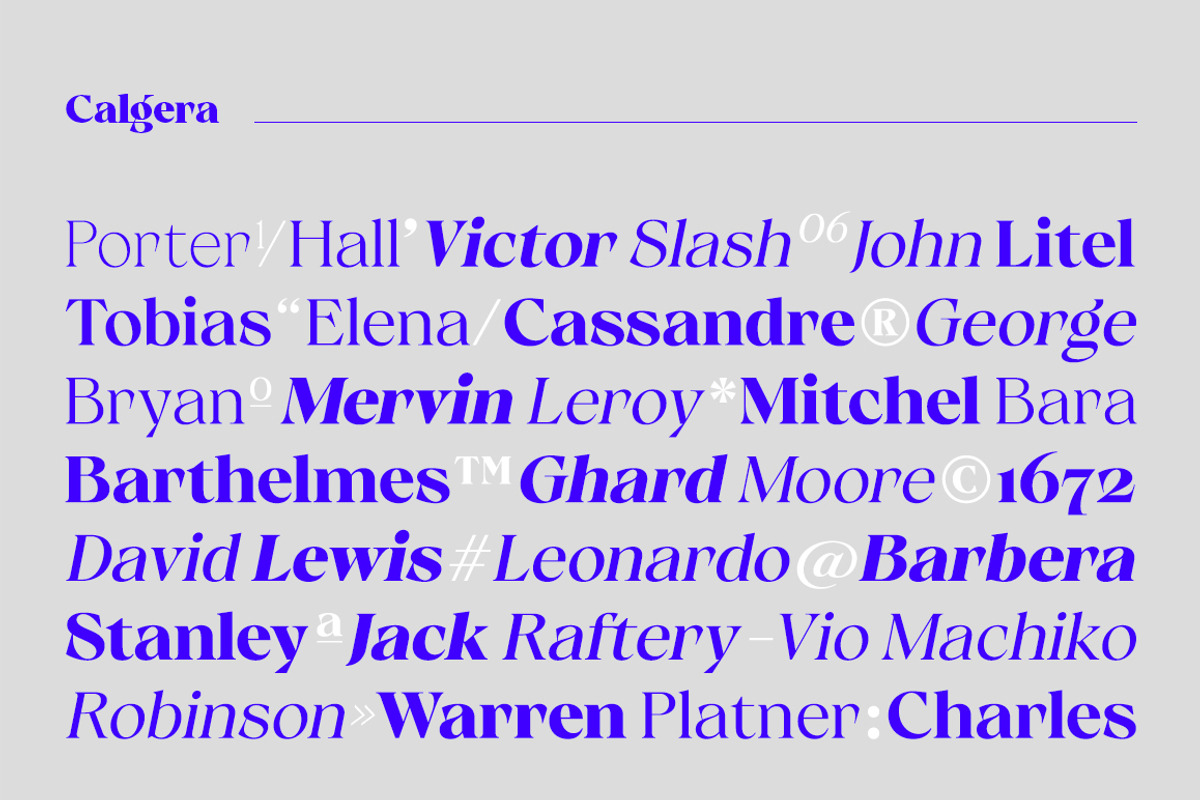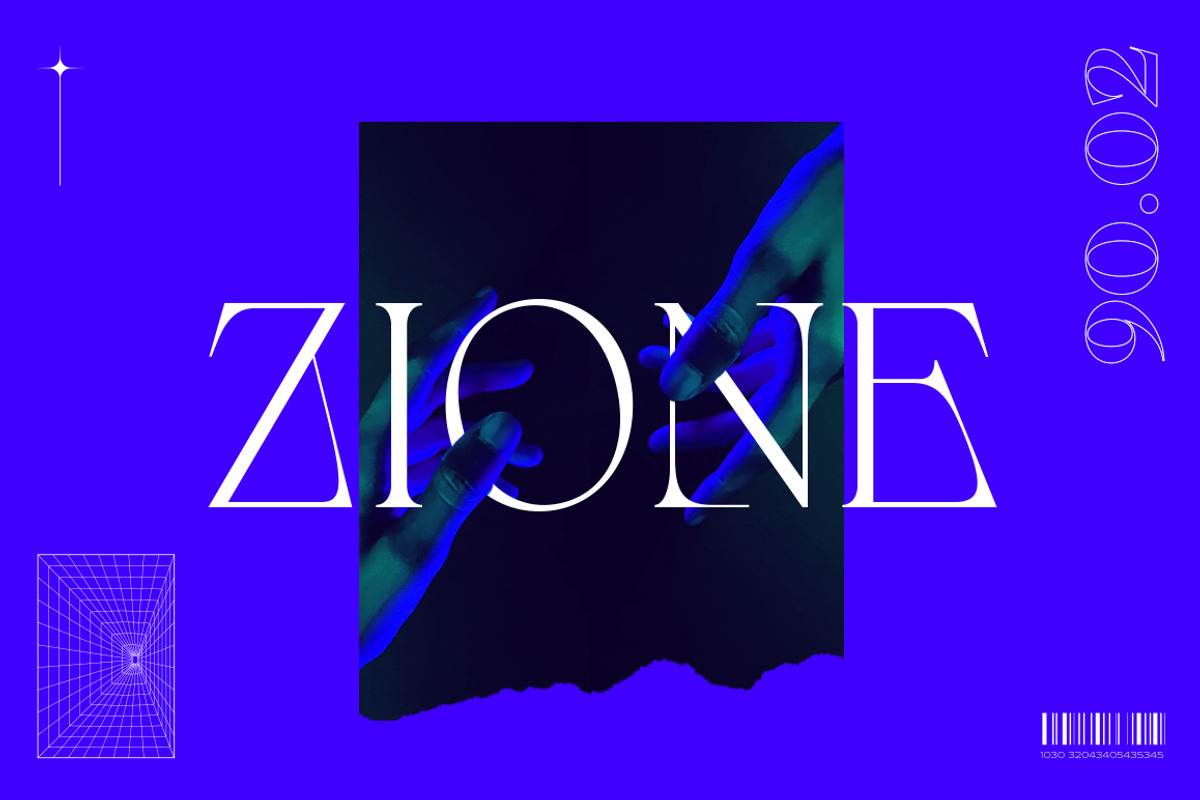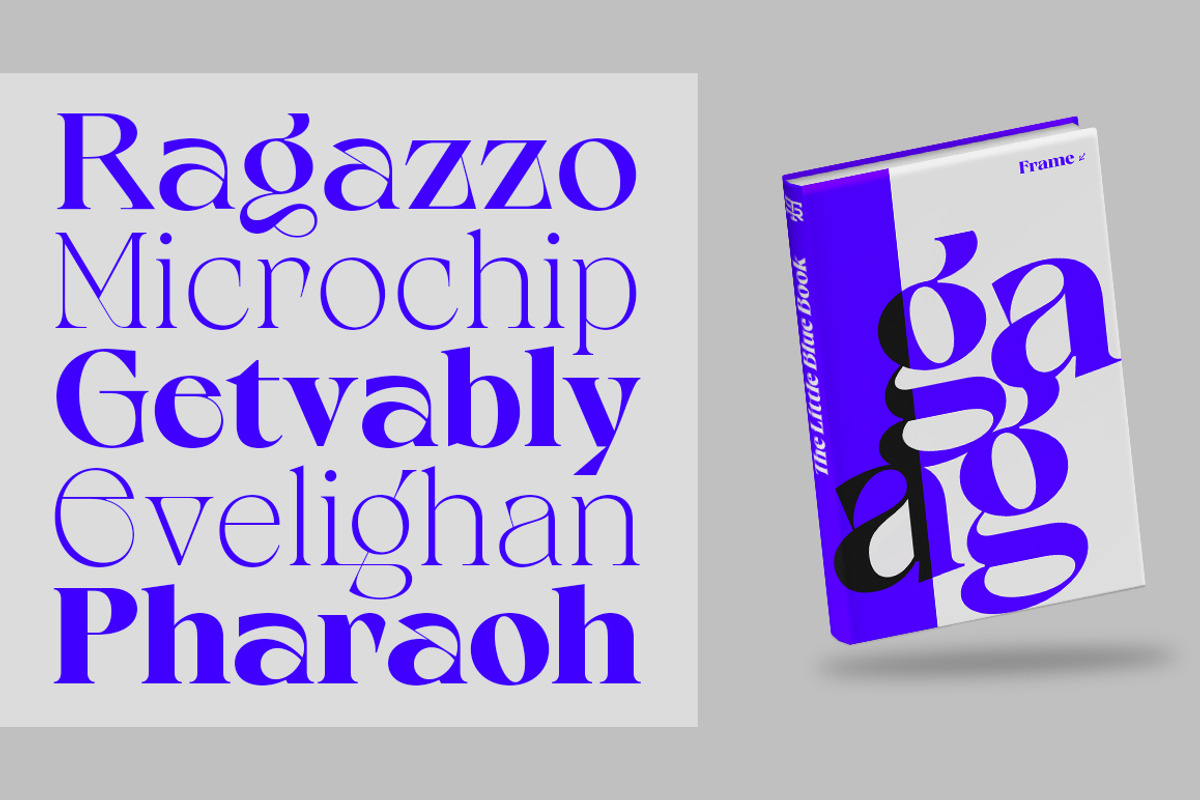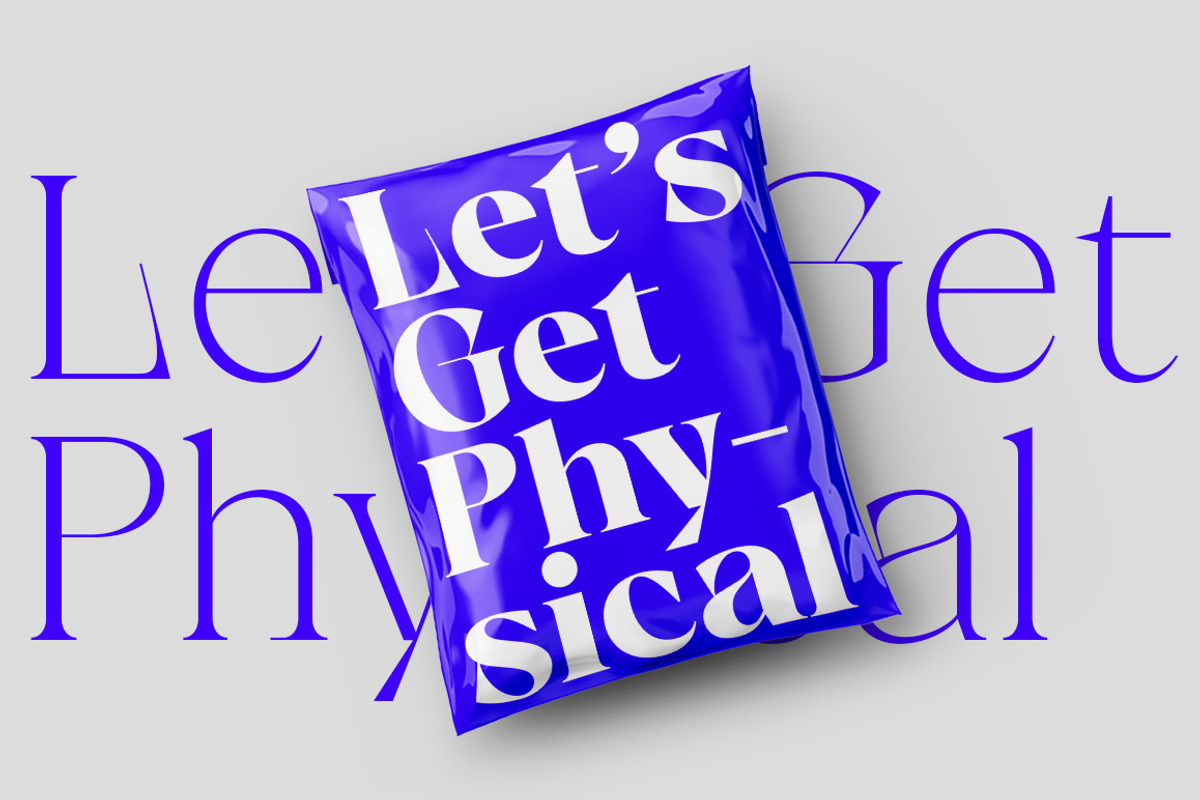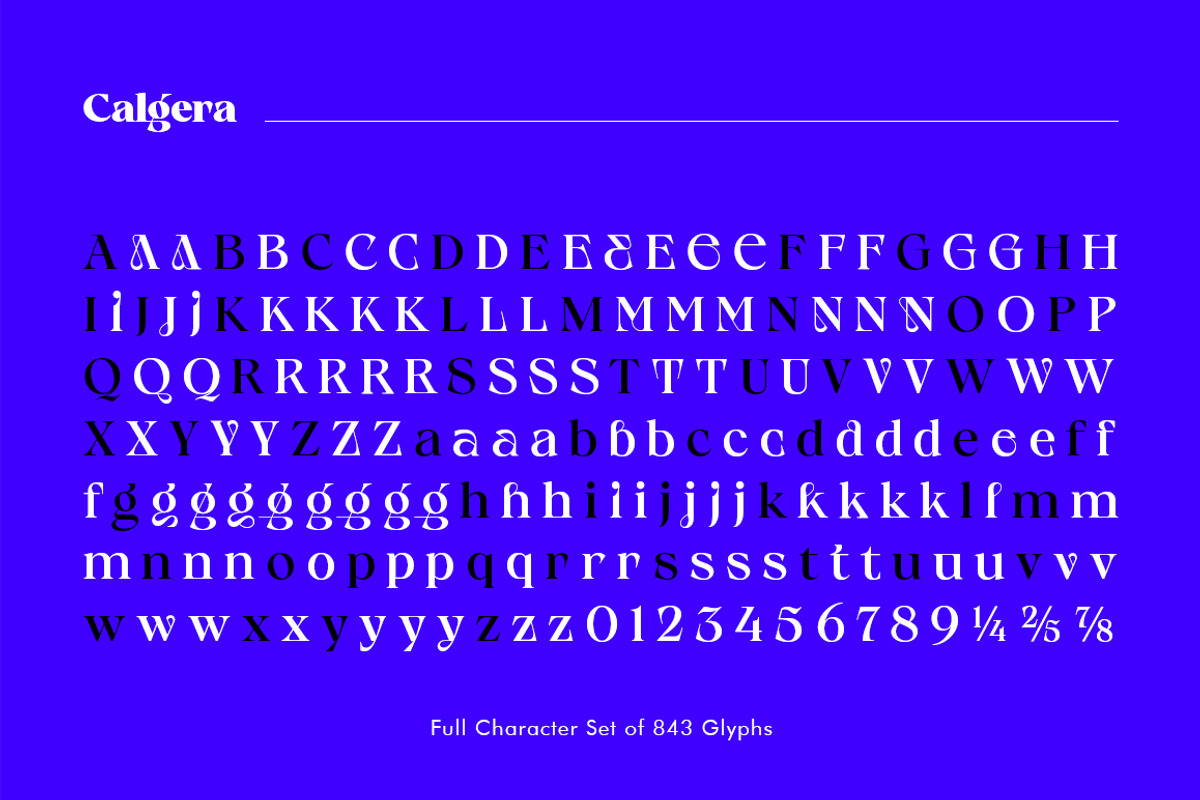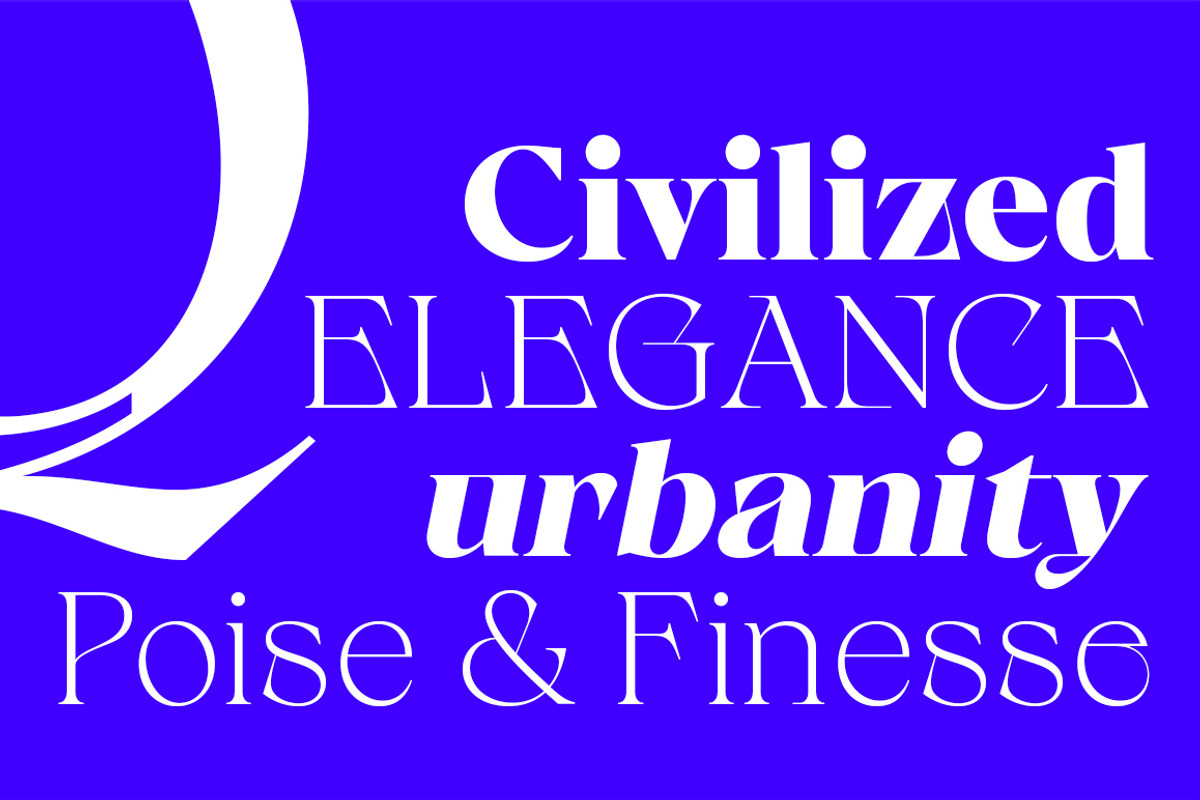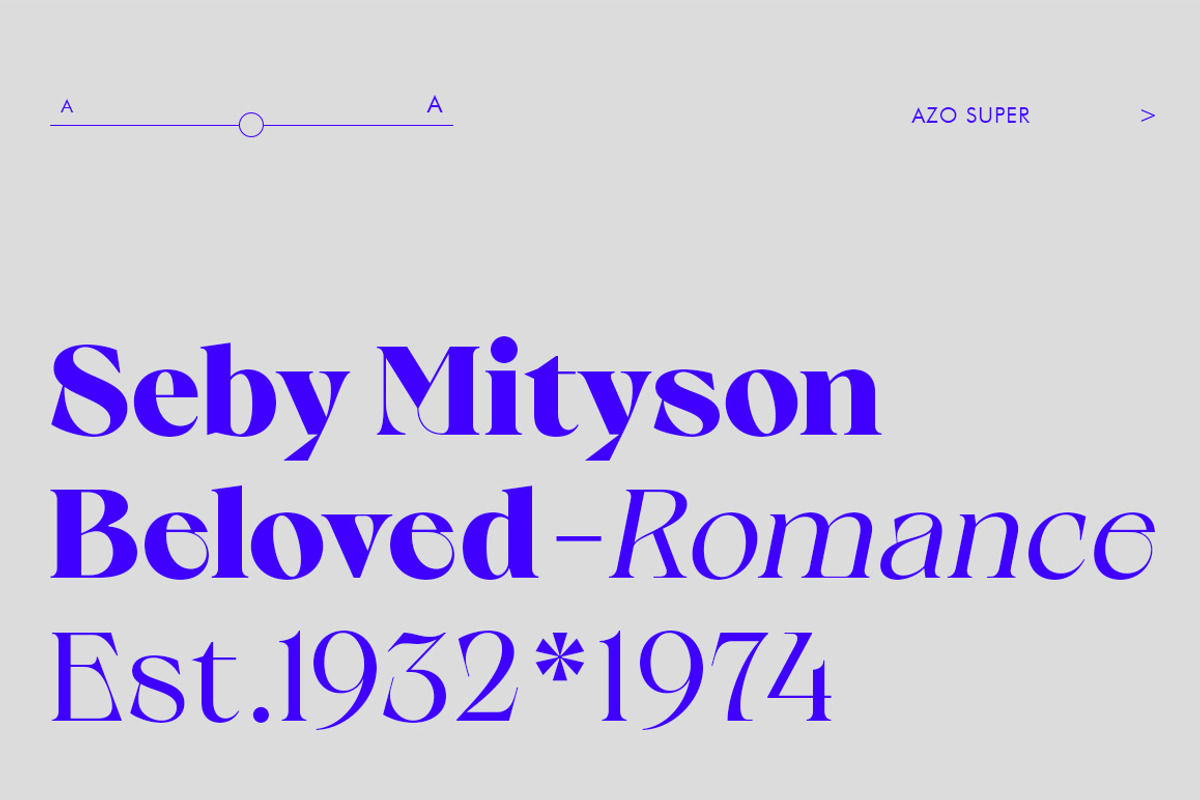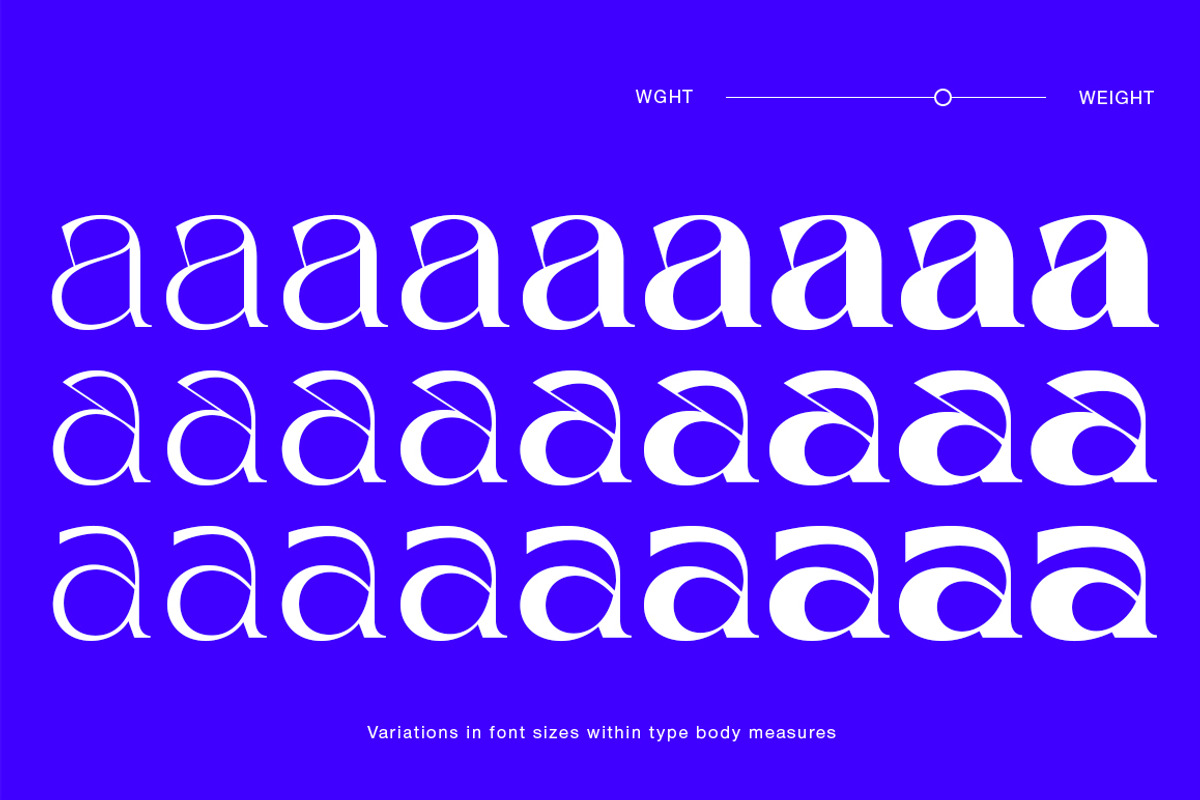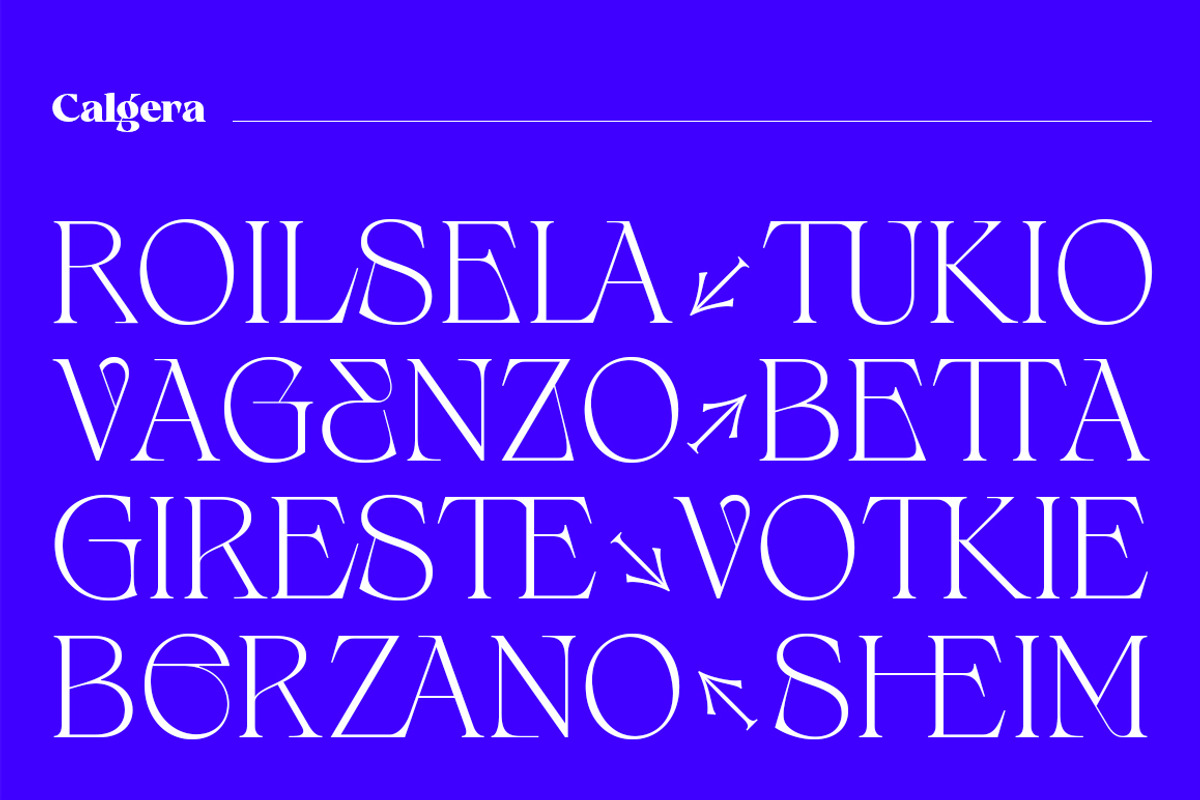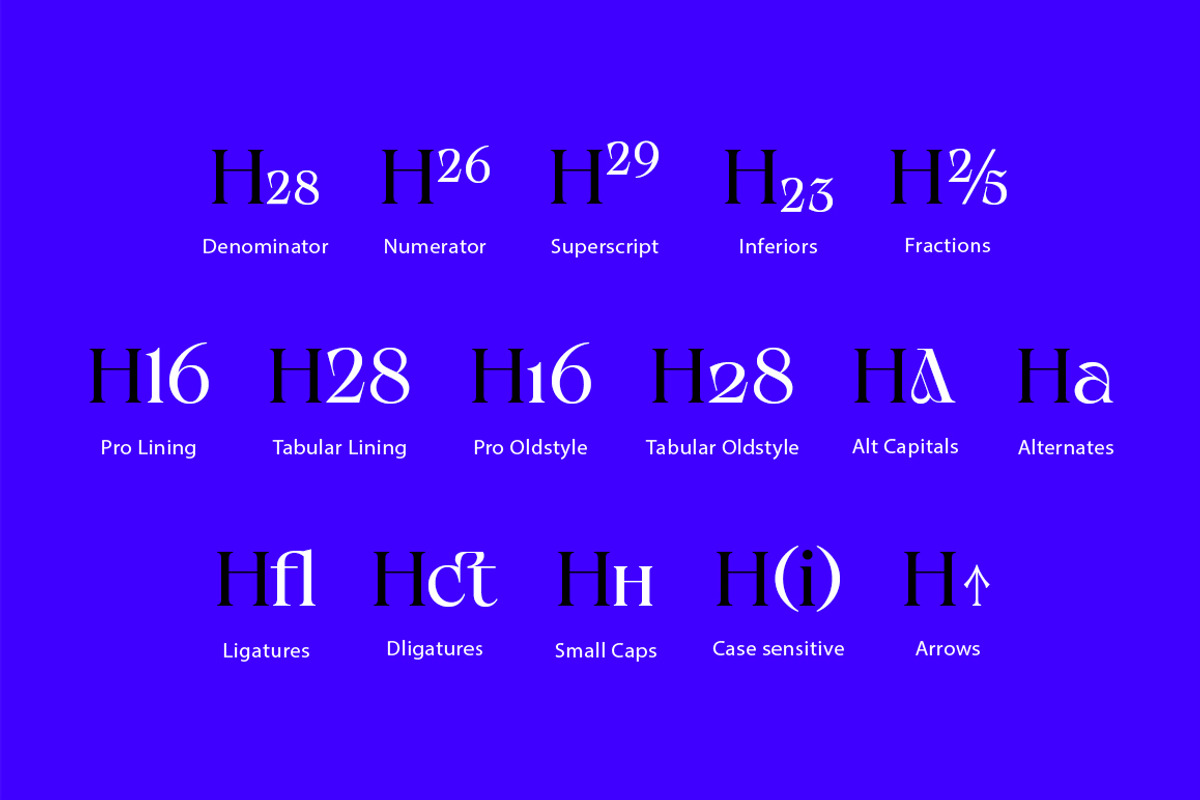
Calgera
Calgera, is a typeface designed by Teuku Riski Firmana.
Calgera is a contemporary serif typeface with a distinctive look. Calgera creates an unique character, with different stylistic sets you can change the feel of your design from more organic to more standard. with 9 weights ranging from Thin to Black. This is an elegant font, with beautiful and harmonious alternate, which makes it ideal for use in magazines, in the fashion industry, branding, logo design, dynamic packaging and countless other projects. When starting this project, we wanted to try to draw a modern serif with the precisely verified shapes and detailed elaboration of each character, making your text look great both on paper and on the screens.
Calgera in numbers:
• 108 styles
• 843 glyphs and 441 characters in each style
• Support for more than 48+ languages
• 27 OpenType features in each style
• Amazing Manual TrueType Hinting
• 4 variable exes (Weight, Width, Slant, Contrast)
Useful OpenType features:
Access All Alternates, Historical Forms, Stylistic Alternates, Stylistic Set 1, Stylistic Set 2, Stylistic Set 3, Stylistic Set 4, Stylistic Set 5, Stylistic Set 6, Stylistic Set 7, Stylistic Set 8, Fractions, Oldstyle Figures, Ordinals, Numerators, Small Capitals, Discretionary Ligatures, Standard Ligatures, Small Capitals From Capitals, Case-Sensitive Forms, Denominators, Scientific Inferiors, Subscript, Superscript, Kerning.
Calgera language support:
Acehnese, Afrikaans, Albanian, Basque, Bosnian, Catalan, Croatian, Czech, Danish, Dutch, English, Estonian, Faroese, Filipino, Finnish, French, Galician, German, Hungarian, Icelandic, Indonesian, Irish, Italian, Latvian, Lithuanian, Malay, Norwegian Bokmål, Polish, Portuguese, Romanian, Slovak, Slovenian, Spanish, Swahili, Swedish, Turkish, Welsh, Zulu, Tagalog, Serbian, Zazaki, West Frisian, Breton, Gagauz, Scottish Gaelic, Northern Sami, Esperanto, Latin.